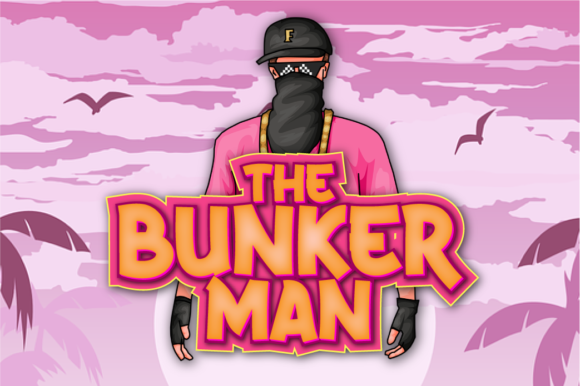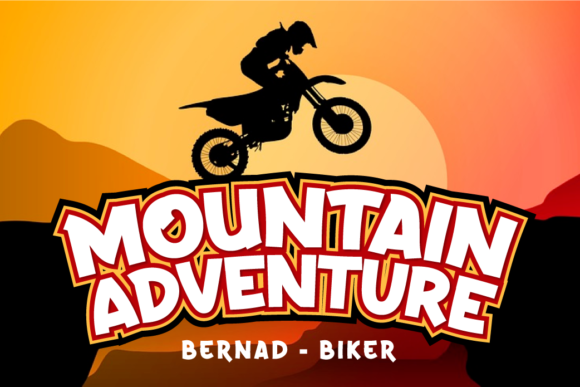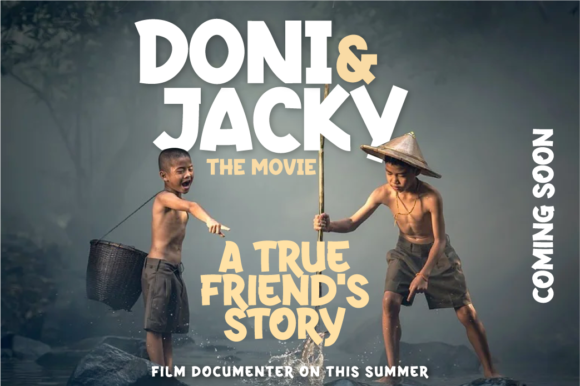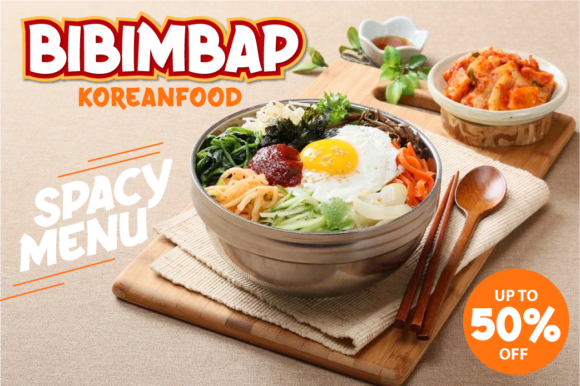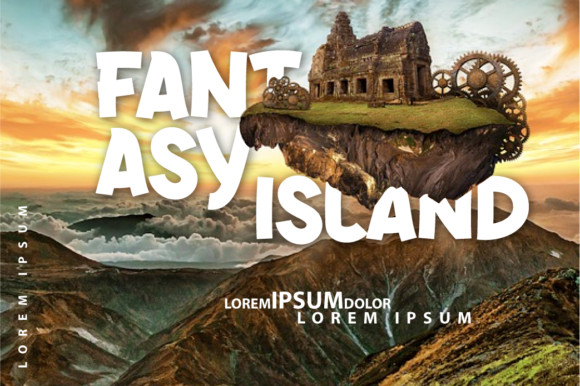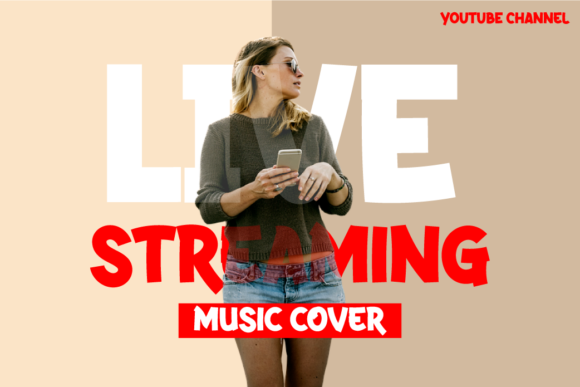
Discover the Perfect Font for Your Next Children’s Project
Have you ever stared at a blank canvas, trying to come up with the perfect design for a children’s book, party invitation, or educational poster? You know the feeling when you’re stuck, and nothing seems to spark your creativity? That’s exactly what happened to me the other day when I was working on a design project for a kids’ clothing line.
That’s when I stumbled upon the delightful Aquatic Font, a cute and cartoon-like display font that immediately caught my attention. This charming font is specifically designed for children-themed designs and is sure to add a playful touch to any project. Whether you’re a seasoned designer or a creative beginner, the Aquatic Font is a valuable addition to your design toolkit, guaranteed to make your projects stand out.
Aquatic Font Key Features
- Font Size: 1000 glyphs, including letters, numbers, punctuation, and special characters
- Resolution: Supports high-resolution display, suitable for use on screens with high pixel density
- Unique Characteristics: Features a unique, flowing design inspired by ocean waves, perfect for use in nautical or aquatic-themed designs
- Font Weight: Includes multiple font weights, from light to bold, allowing for a range of design possibilities
A Designer’s Honest Review of “Aquatic Font”
Overall, I found “Aquatic Font” to be a visually appealing and unique font. ✨ Its irregular shapes and organic feel evoke a sense of underwater adventure, perfect for branding and design projects that require a whimsical touch.
The font’s versatility is one of its strongest points. ✨ It can be used for both display and body text, and its varying weights and styles offer endless possibilities for creative expression. Additionally, the font’s legibility is surprisingly good, making it suitable for a wide range of applications.
However, I did encounter some limitations. ⚠️ One of the main concerns is the font’s readability at smaller sizes. At text sizes below 14 points, the font’s irregularities can become distracting and difficult to decipher. Additionally, the font’s bold and italic styles can appear inconsistent, which may require some tweaking to achieve the desired effect.
Overall, I would recommend “Aquatic Font” for projects that require a playful and eye-catching aesthetic. While it may not be the best choice for complex text or small-scale applications, its unique charm and versatility make it a valuable addition to any designer’s toolkit.
Here are some pros and cons to consider:
- ✨ Unique and visually appealing design
- ✨ Versatile and suitable for display and body text
- ✨ Good legibility
- ⚠️ Limited readability at small sizes
- ⚠️ Inconsistent bold and italic styles
Aquatic Font: A Practical Application Guide
Tips for Getting the Most Out of Aquatic Font
Aquatic Font is perfect for creating underwater-themed designs, such as ocean-inspired posters, social media posts, or presentations. To get the most out of this font, try:
- Combining it with other ocean-themed elements, such as waves, seashells, or fish
- Using it in conjunction with bright, calming colors to evoke a sense of serenity
- Experimenting with different font sizes and styles to create visual interest Alternatives to Aquatic Font
- Set the font as the primary typography for the city’s name and main titles.
- Adjust the font size to create a sense of hierarchy and emphasis.
- Combine with 3D modeling to create a realistic underwater environment.
- Use vibrant blues and greens to create a sense of depth and atmosphere.
- Combine with intricate textures to give the city a worn, underwater feel.
- Use glowing effects to highlight key features and create a sense of mystery.
Q: What is the recommended font size for optimal readability in Aquatic Font?
The recommended font size for optimal readability in Aquatic Font is between 12-24 points, depending on the context and intended use. For body text, a font size of 14-16 points is recommended. For headings, a font size of 18-24 points is suitable. Experiment with different font sizes to find the perfect balance for your design.